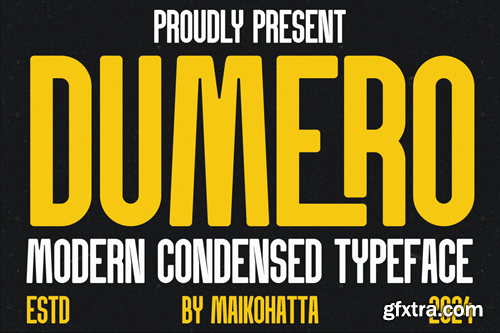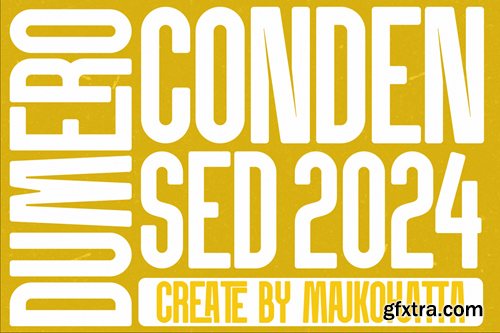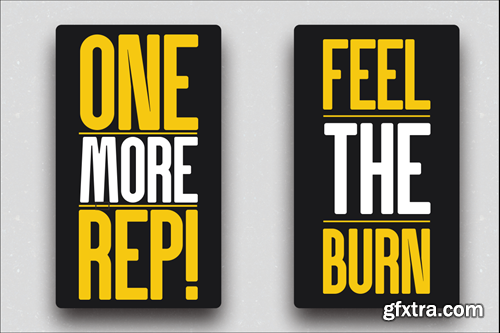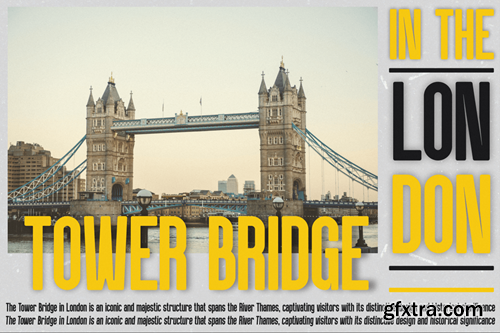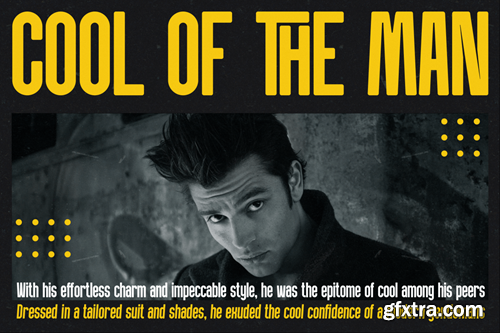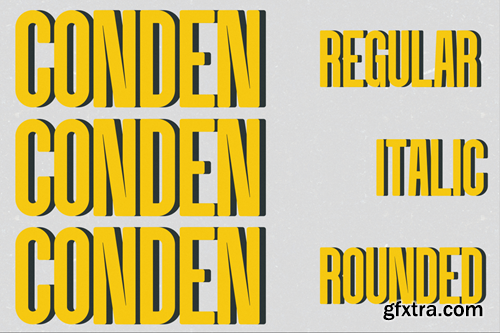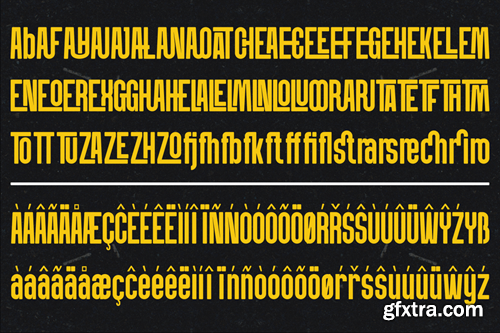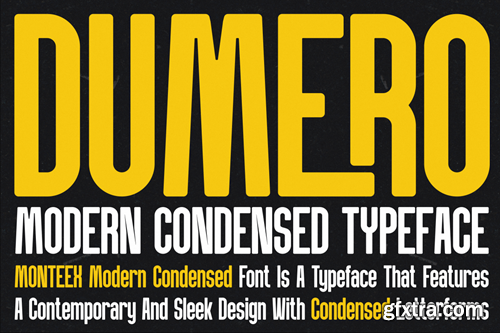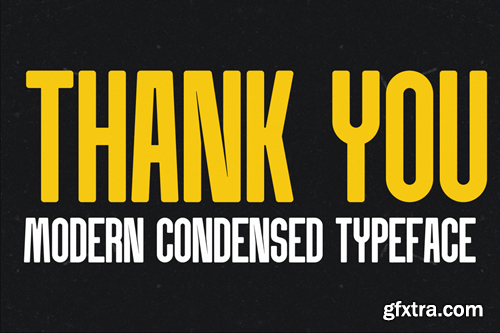
Dumero - Modern Condensed Typeface WB7LWDY
Dumero - Modern Condensed Typeface
Introducing our new product Dumero - Modern Condensed Typeface
This font is a type of font that is characterized by narrower or slimmer letterforms compared to regular or wide fonts. Condensed fonts are often used in various graphic designs, print materials, and other media because they have distinct advantages and unique characteristics
• Uppercase
• Lowercase
• Multilingual
• Ligature
Style Font
• Regular
• Italic
• Rounded